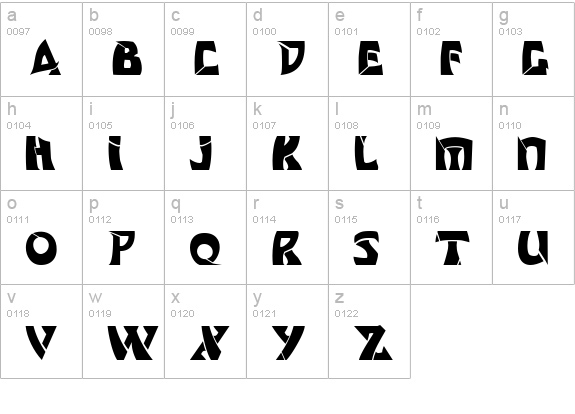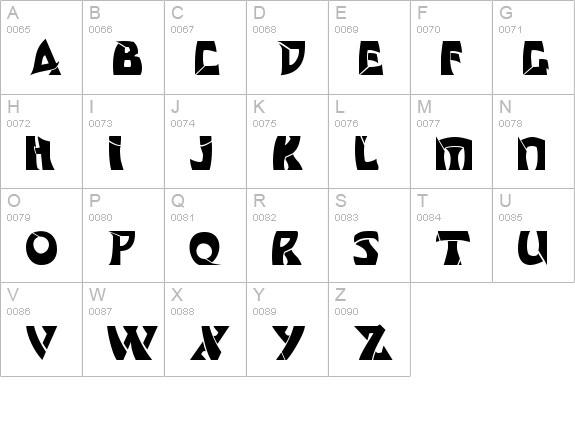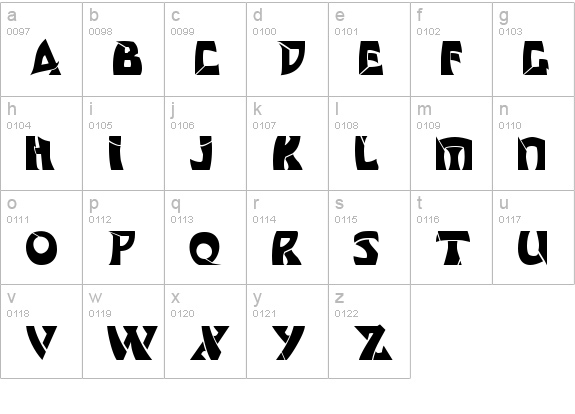
Odishi Font Details
Odishi font is a stylish and contemporary typeface that exudes elegance and sophistication. With its sleek lines and smooth curves, Odishi is perfect for a wide range of design projects, from branding to editorial layouts. This versatile font is sure to make any text stand out and leave a lasting impression on viewers. What sets Odishi font apart is not only its striking aesthetic appeal but also its accessibility. This font is available for free download at FontsMarket.com, making it a valuable asset for designers looking to add a touch of refinement to their creations without breaking the bank. Whether you're working on a logo, website, or print collateral, Odishi font is a fantastic choice that will elevate your designs to the next level.